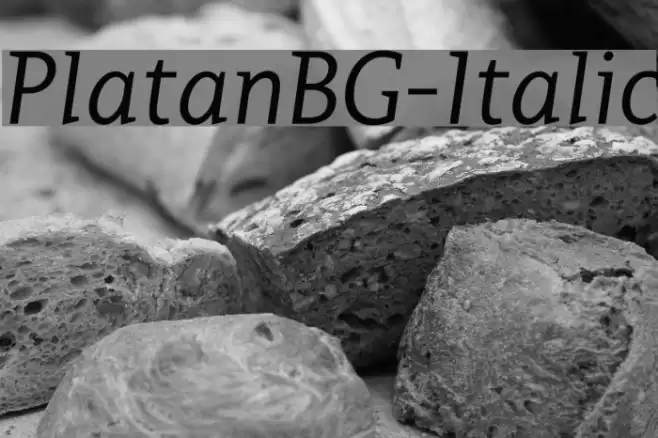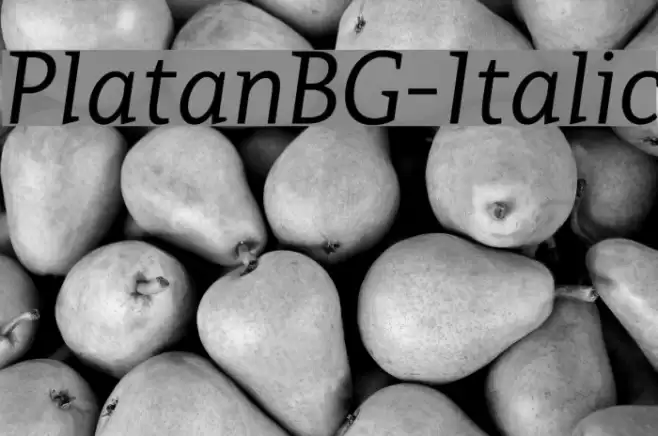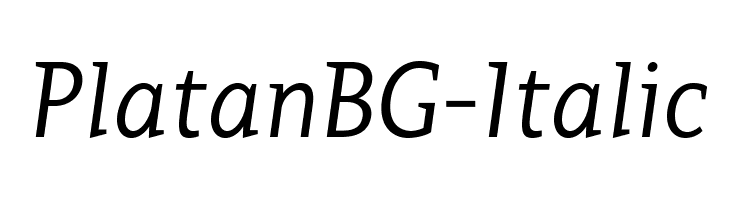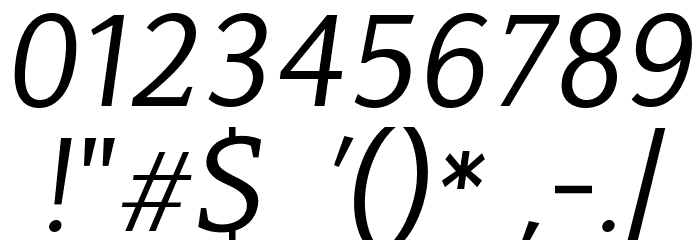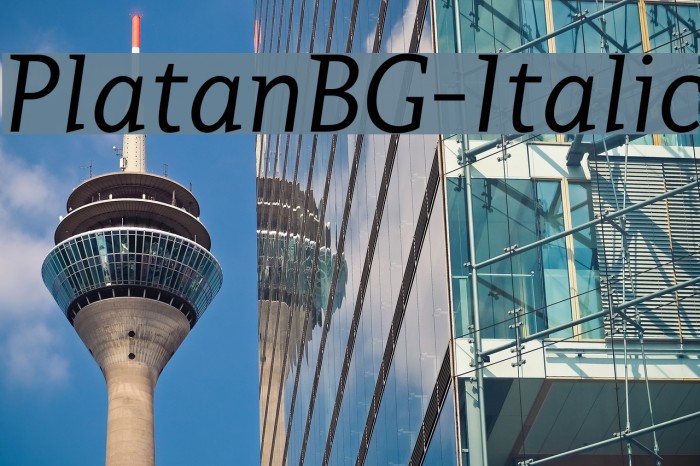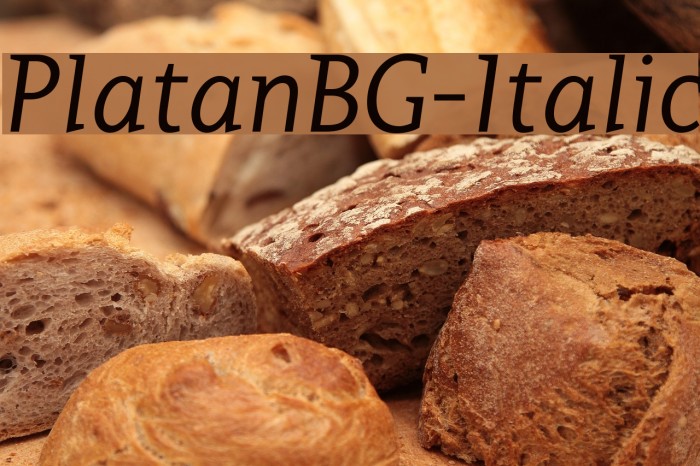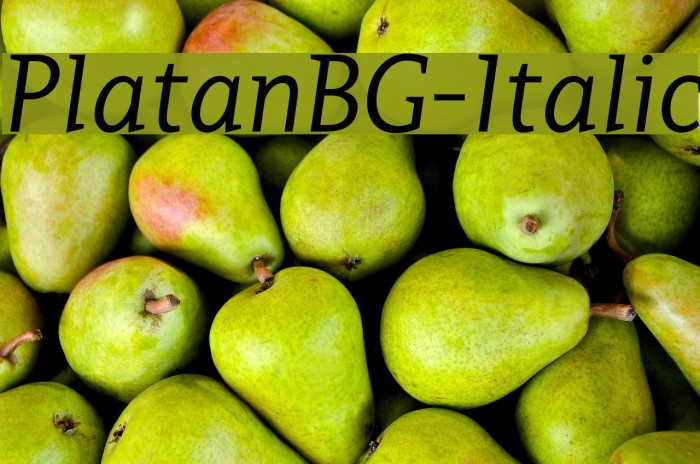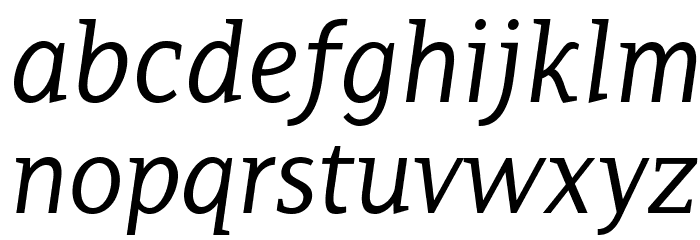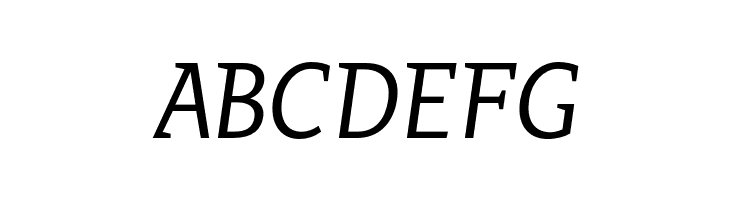
PlatanBG-Italic Font
PlatanBG-Italic Description
This font exhibits a refined and elegant style with a slight slant, indicating its italic nature. The characters are well-proportioned, with a smooth and flowing appearance that enhances readability. The uppercase letters maintain a classic form, while the lowercase letters have a gentle curve, adding a touch of sophistication. The numerals are clear and distinct, ensuring they stand out in any context. Special characters are designed with the same attention to detail, providing a cohesive look across all glyphs. This font's overall aesthetic is both modern and timeless, making it versatile for various design needs.
A refined italic font with smooth, flowing characters and a modern yet timeless aesthetic from Round fonts.
- Proposed Projects: Ideal for elegant branding, editorial design, invitations, and any project requiring a touch of sophistication.